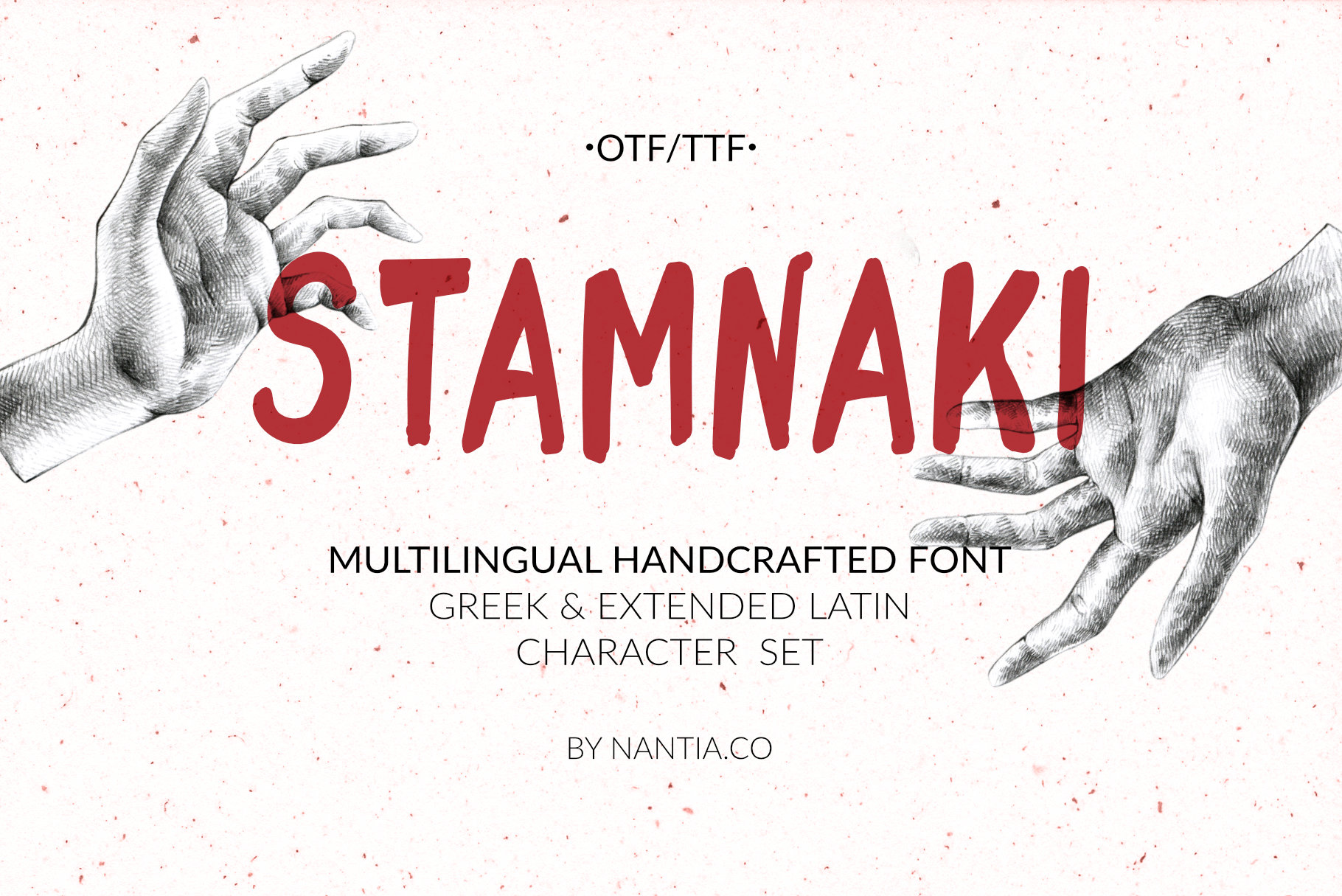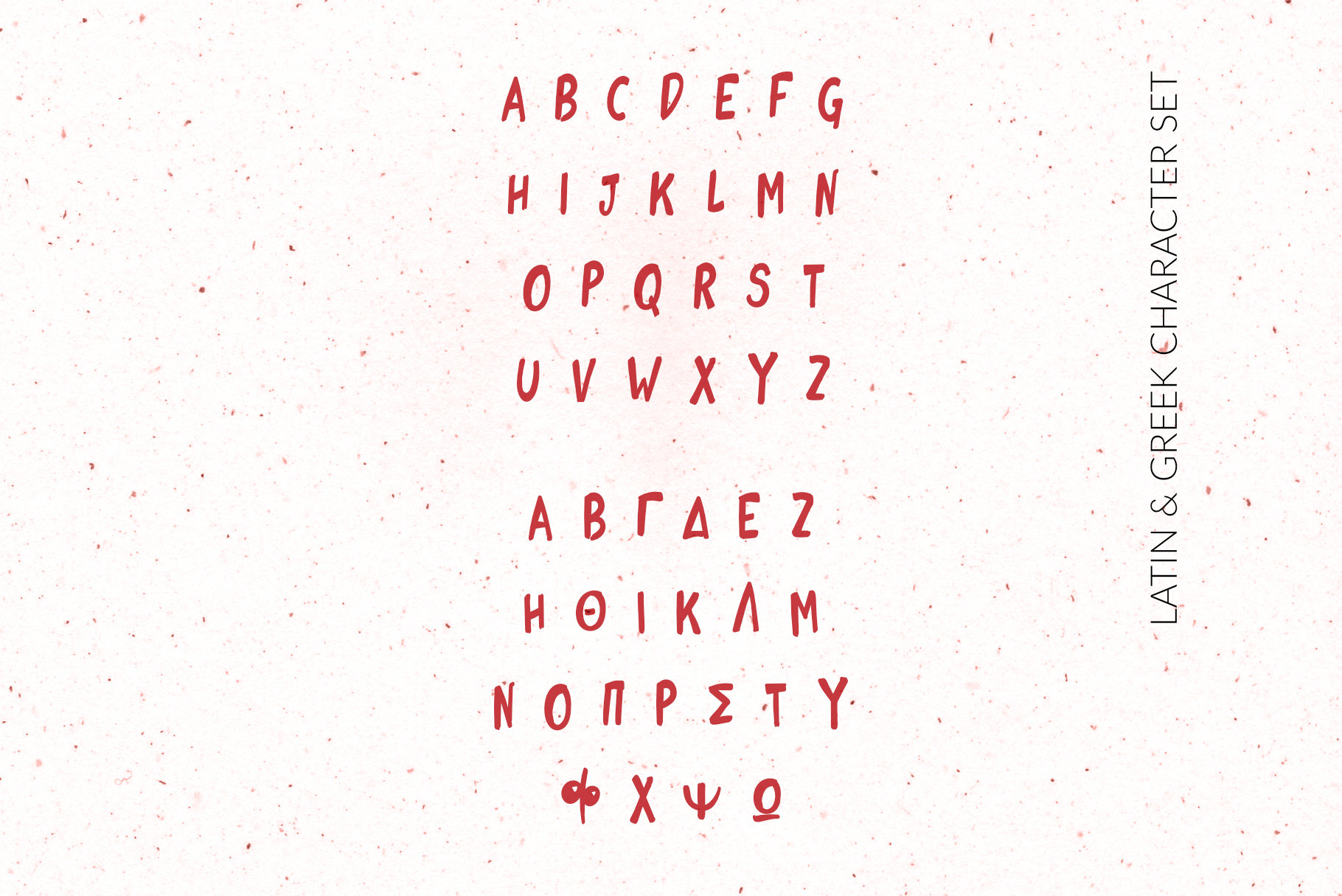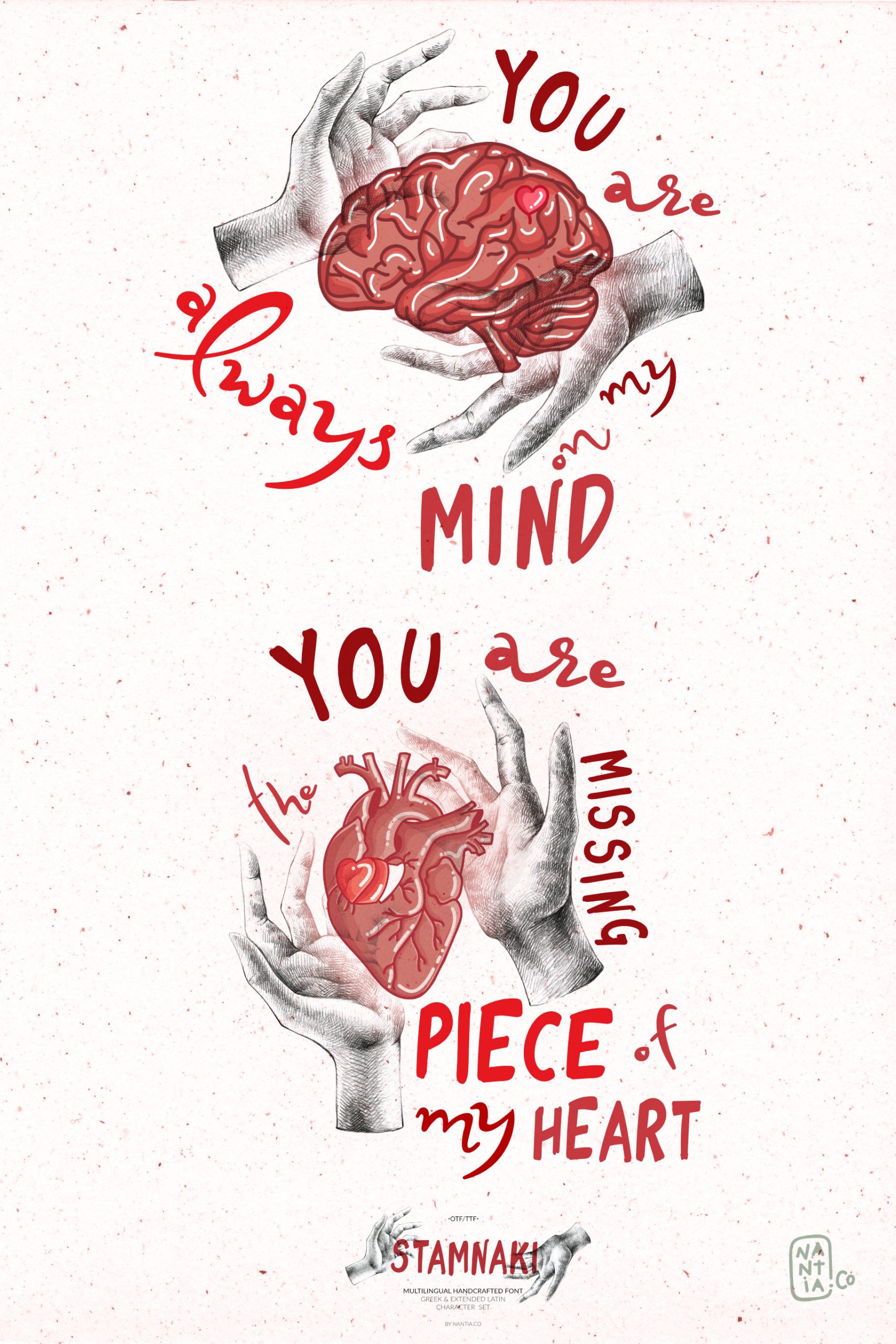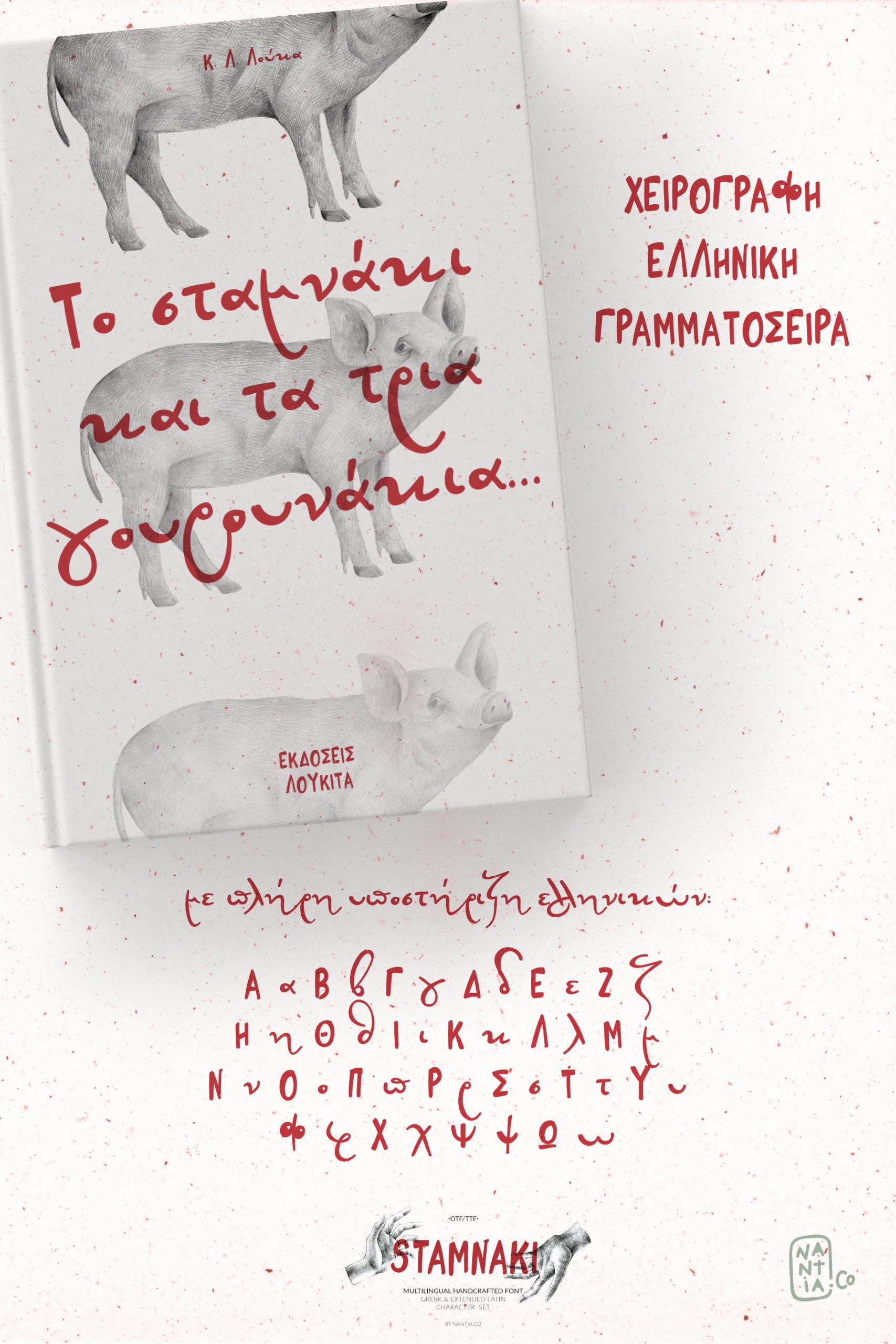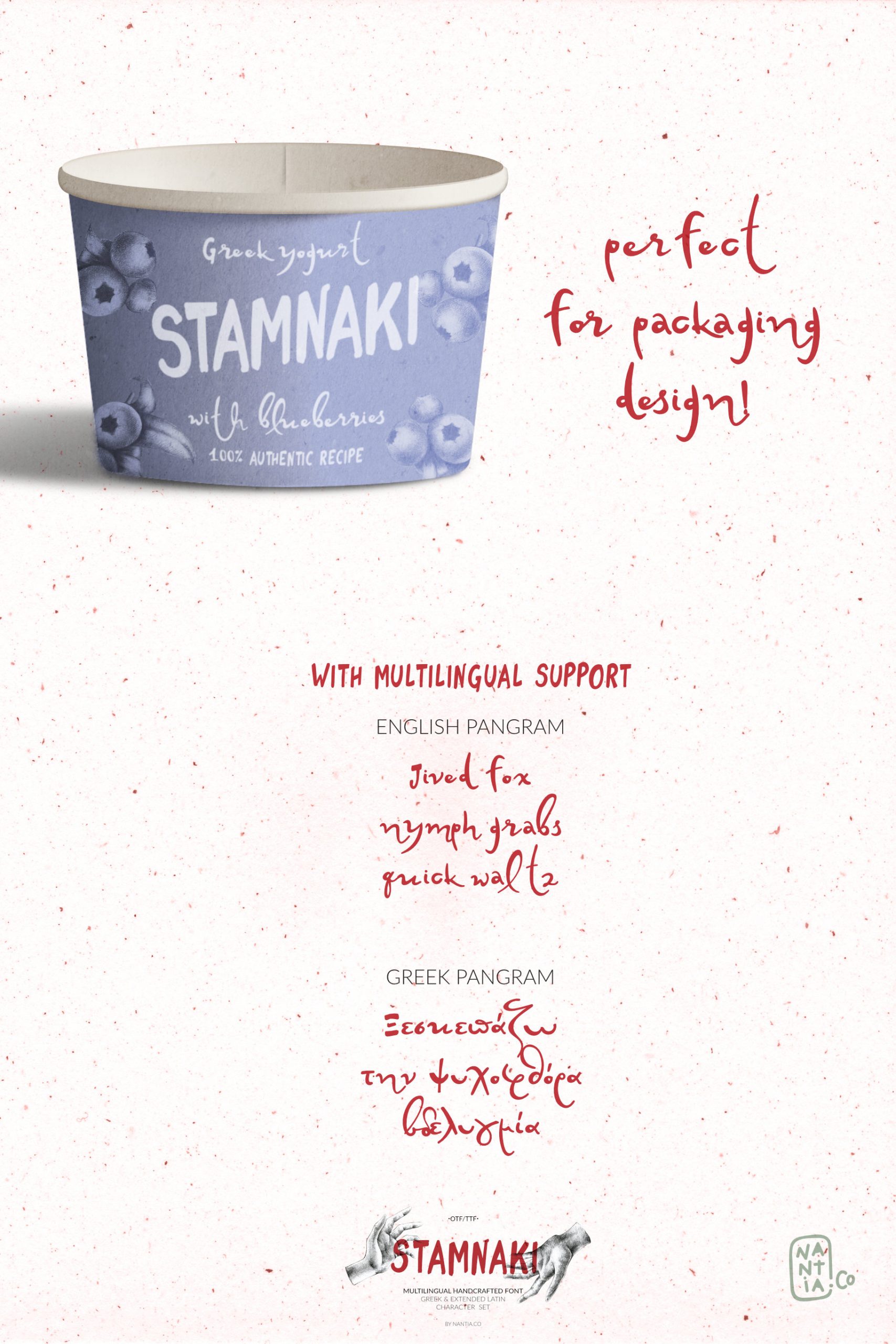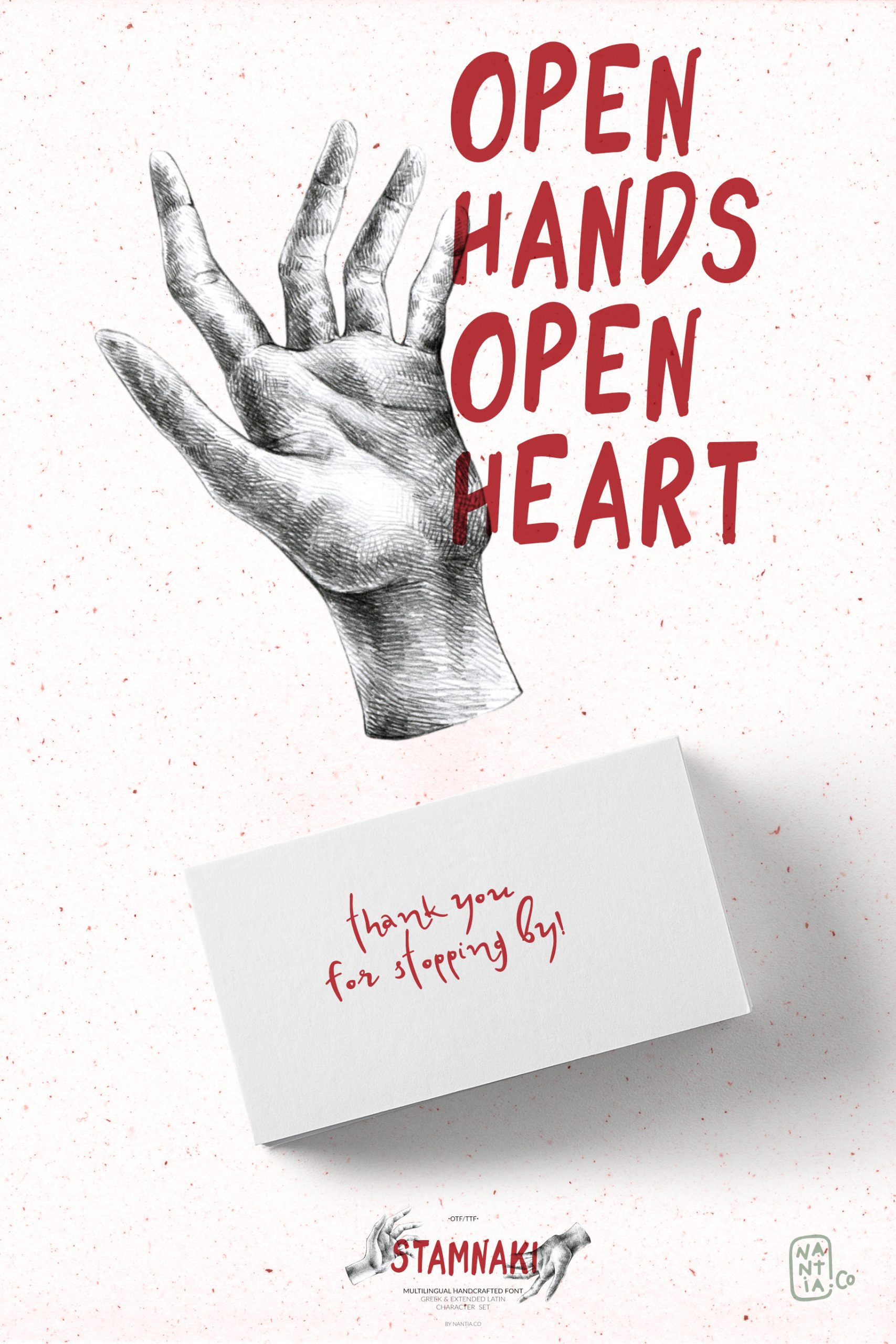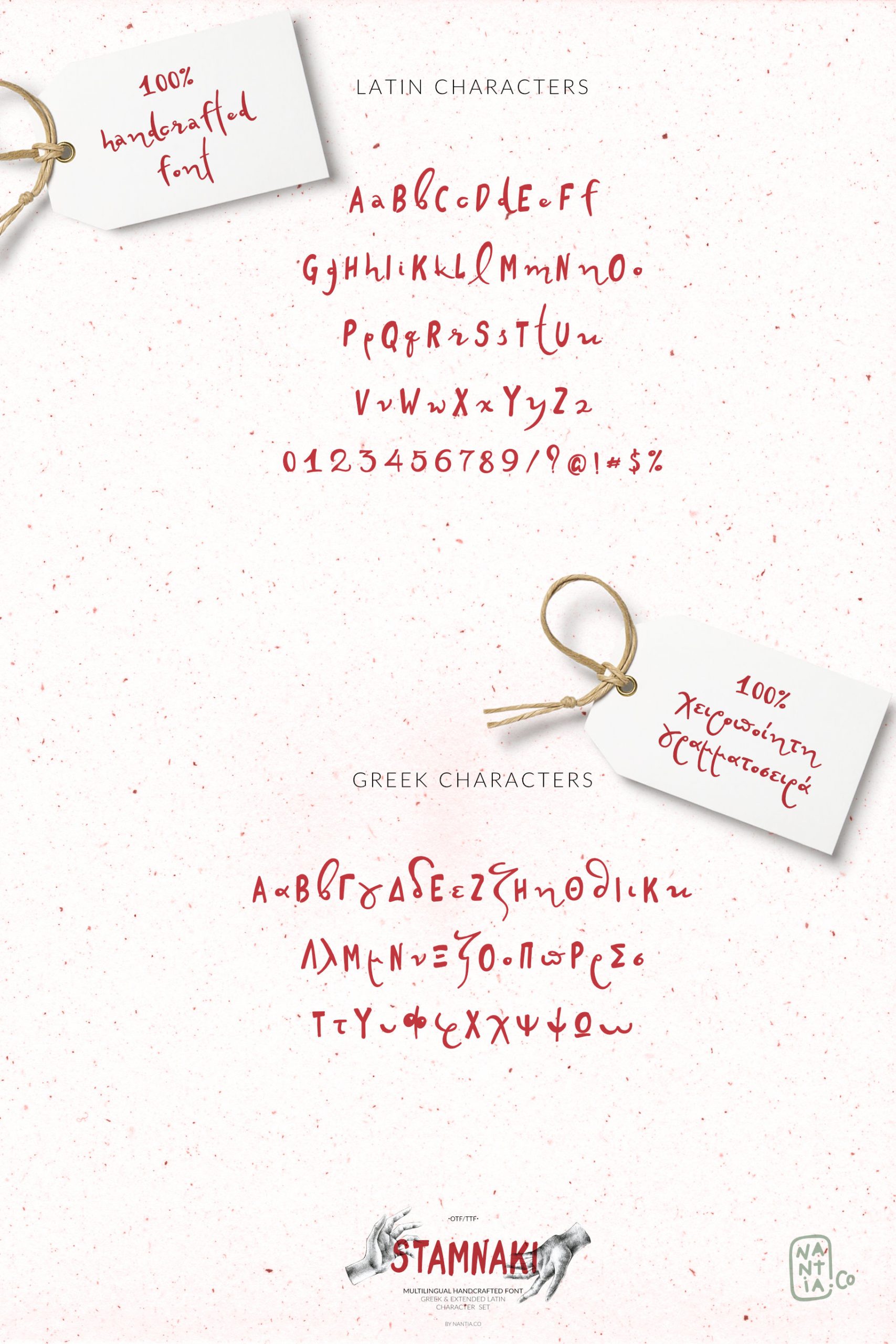
Stamnaki Greek Font
Ξεσκεπάζω την ψυχοφθόρα βδελυγμία
The Stamnaki Greek Font is a 100% hand-drawn decorative font with which you can achieve a handwritten-type lettering feeling. Of course, the fun font supports a full set of Greek characters and an extended Latin character set with diacritics. Therefore, this multilingual font supports all the European languages. In addition, this multilingual font includes over 20 ligatures so you can achieve a hand-lettering aesthetic on the spot.
Cleary, this font can cover from “hand-written” quotes to food packaging, merchandise, and branding projects. Also, it can be used on social media content, for poster design, and any other kind of graphic design that requires hand-crafted feeling. The style of the font is perfect for your modern graphic design needs. Again, if you are into art and crafts this is a fun font for you!
Language Support: The font supports English, French, Italian, Spanish, Portuguese, German, Greek, Swedish, Norwegian, Danish, Dutch, Finnish, Hungarian, Polish, Turkish, Slovenian